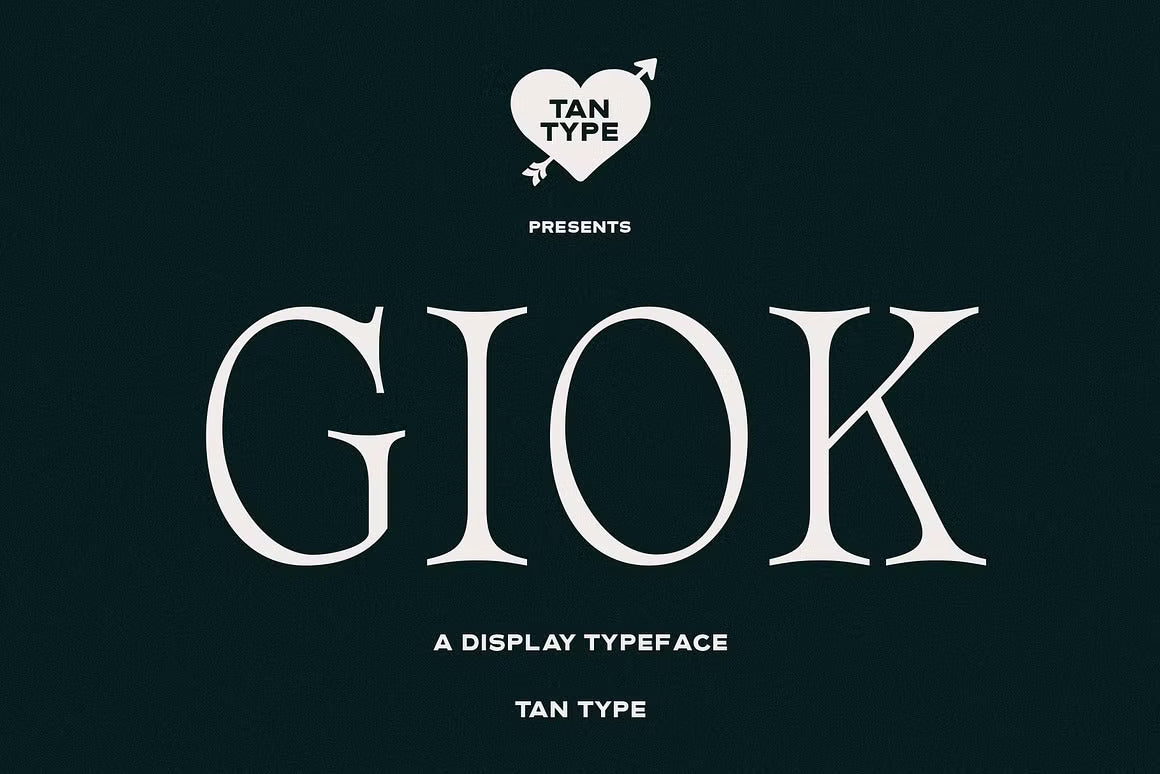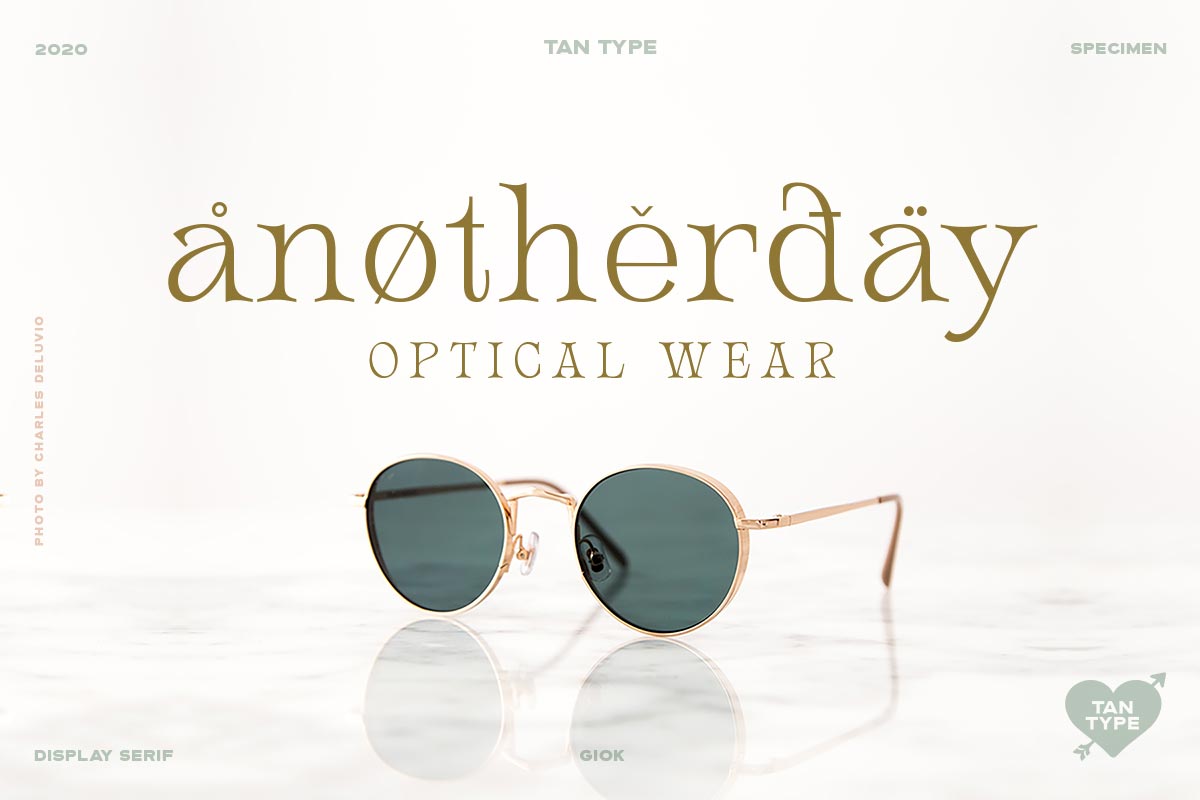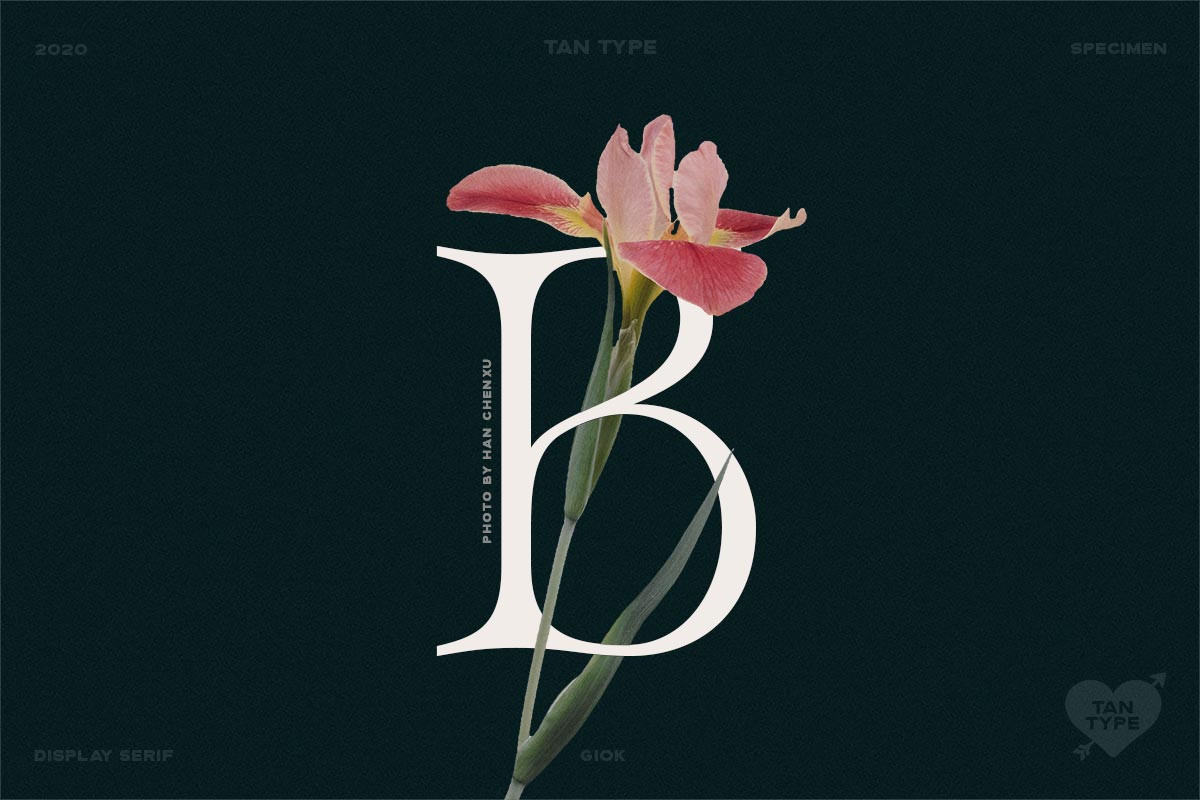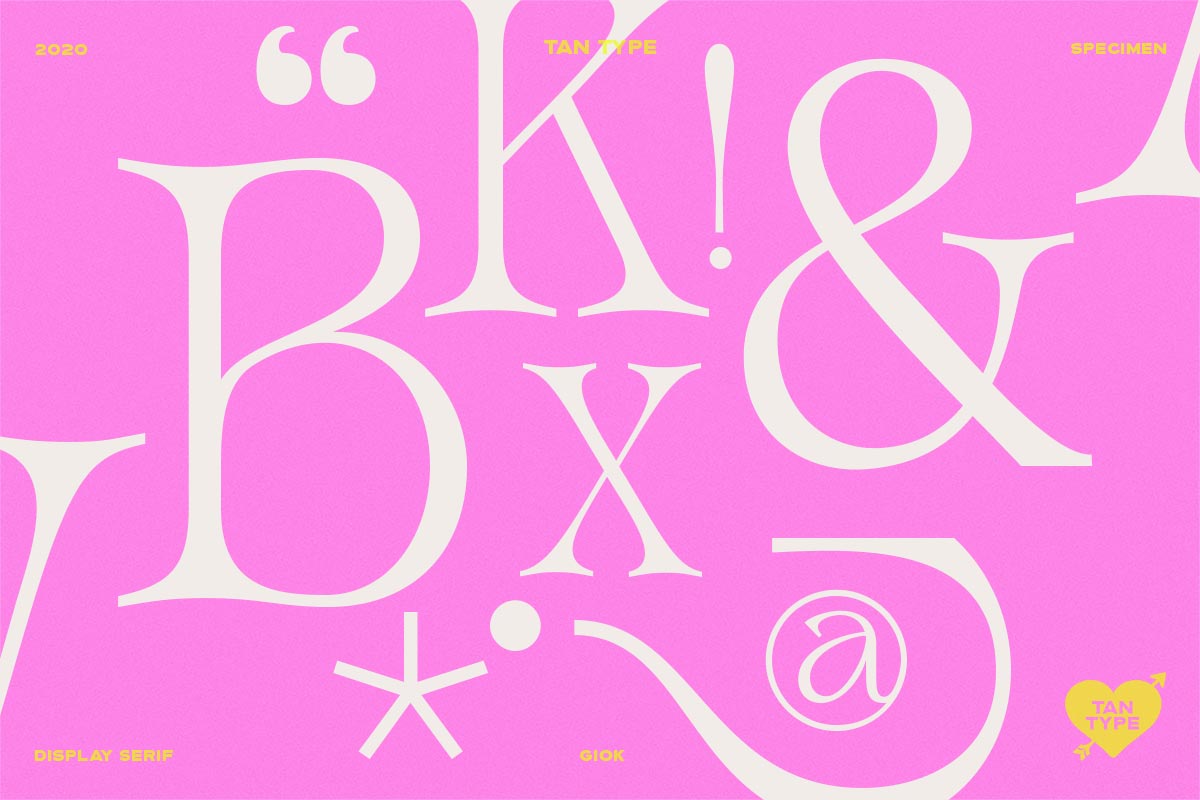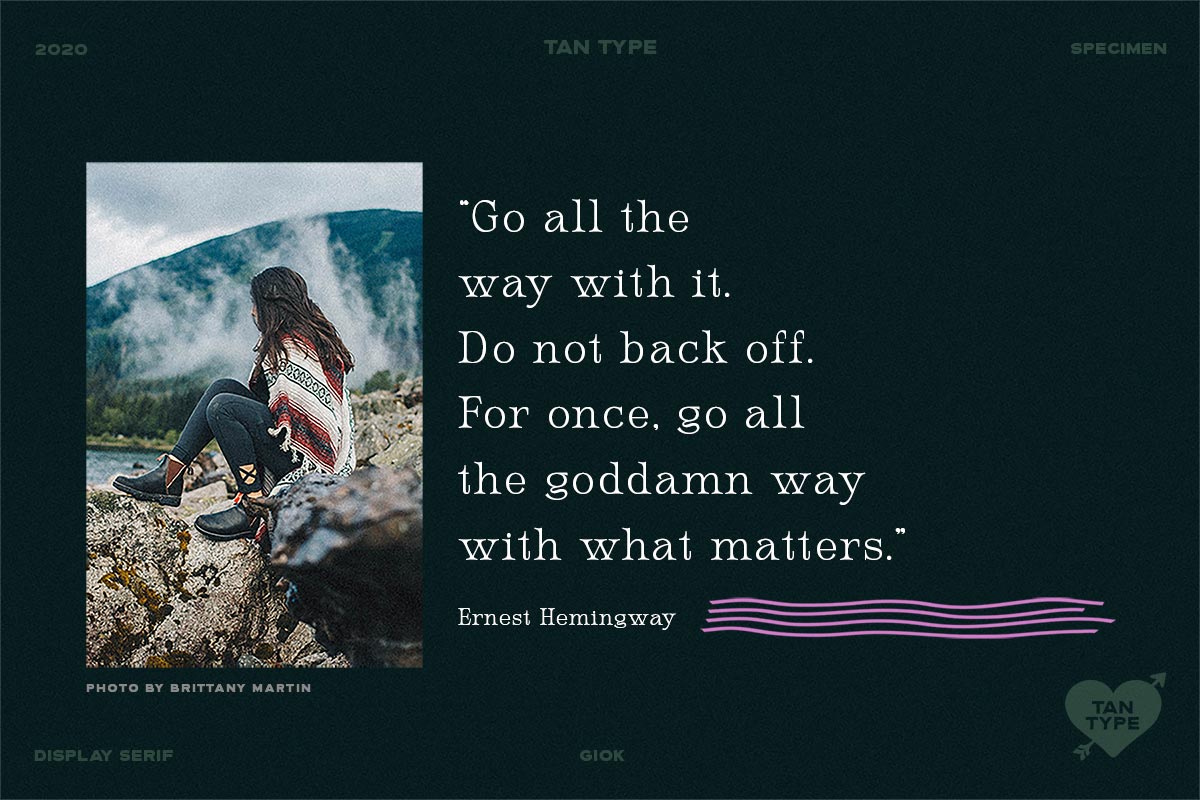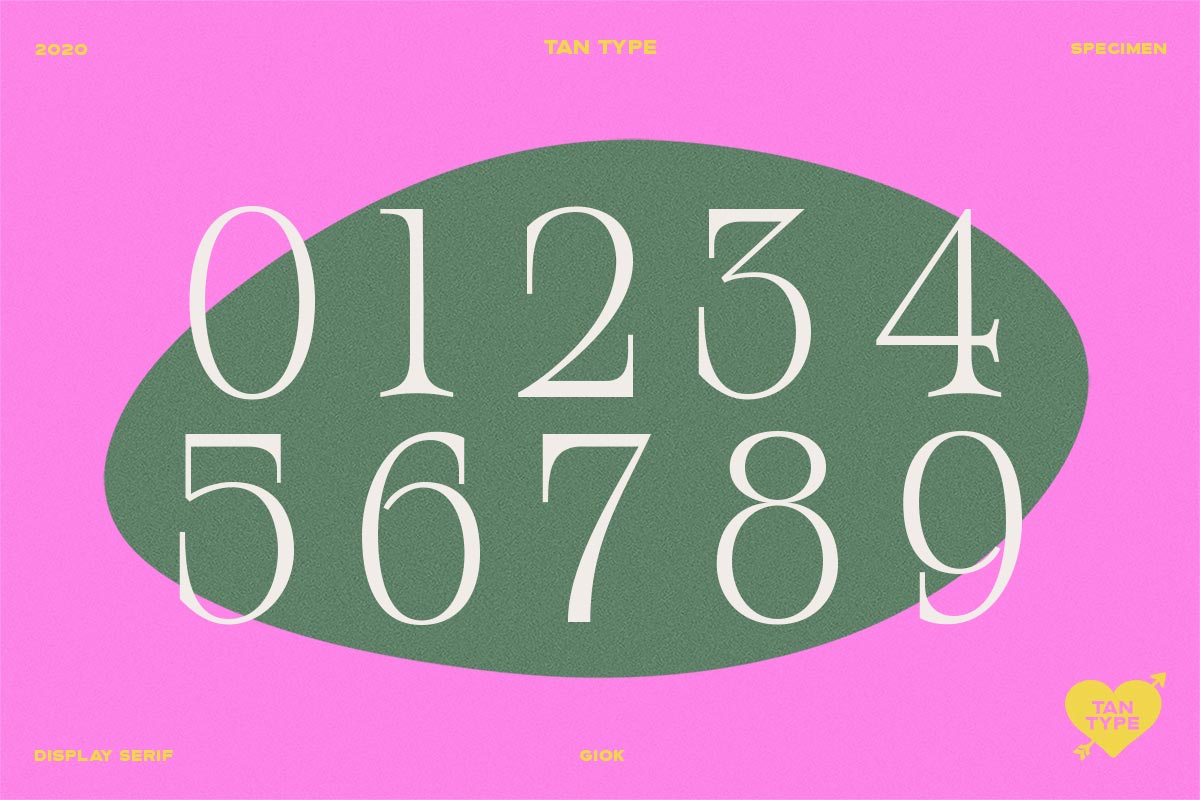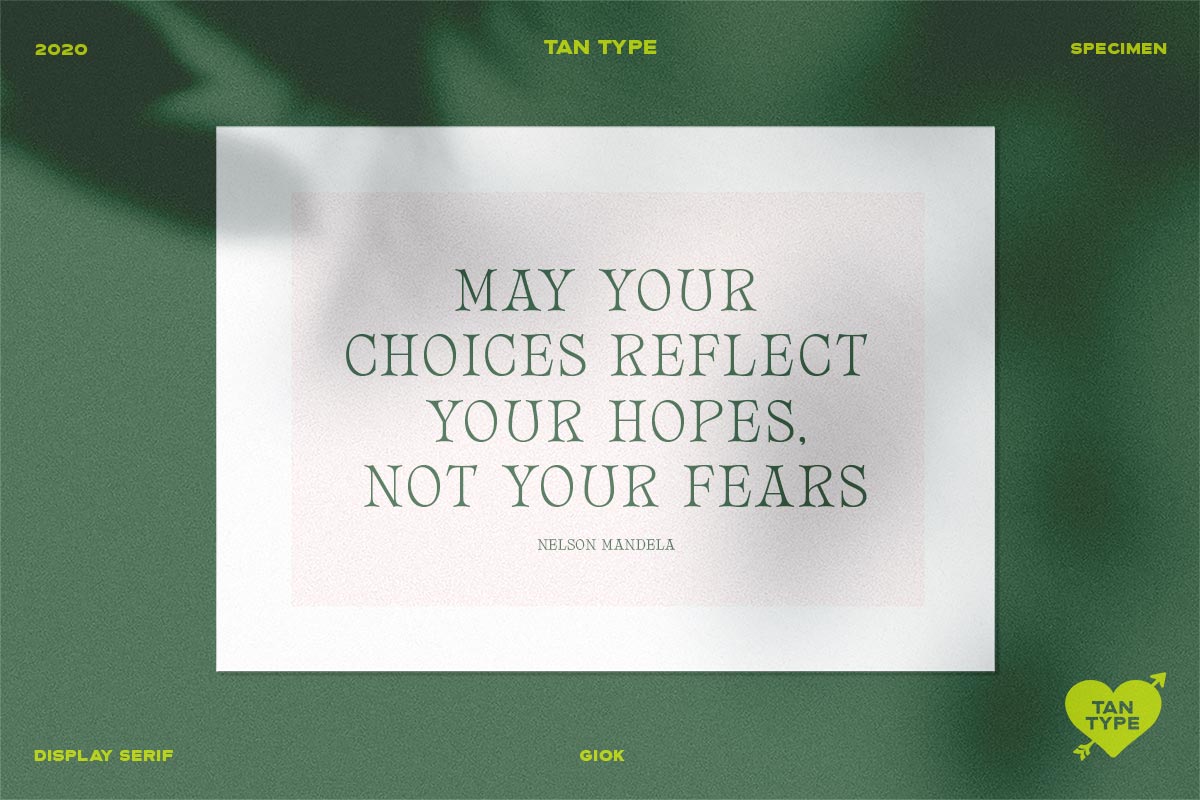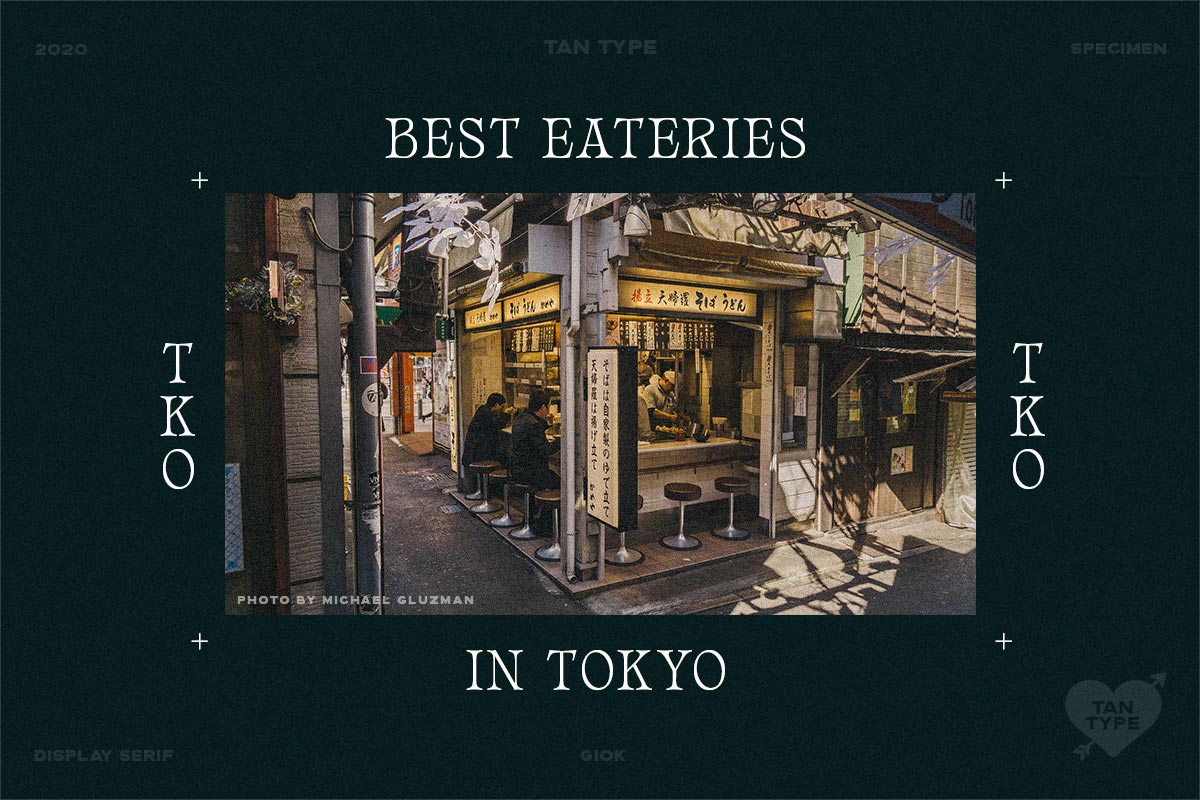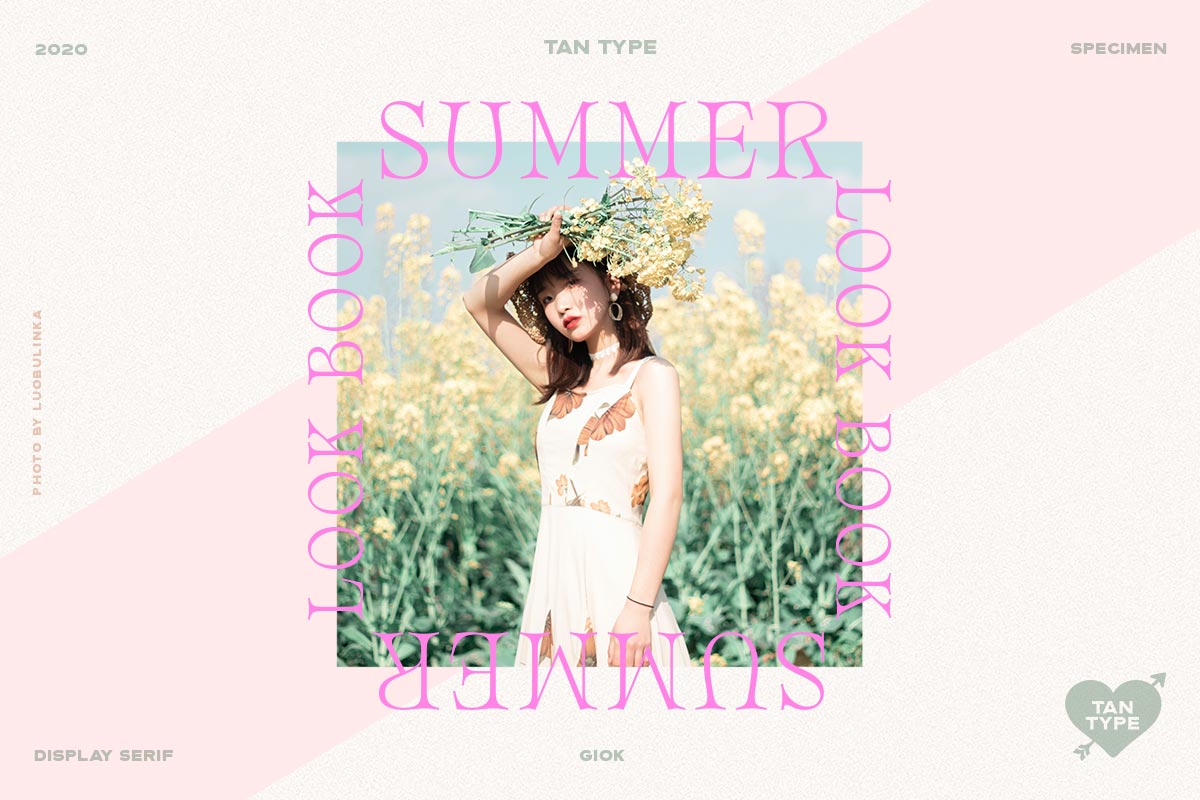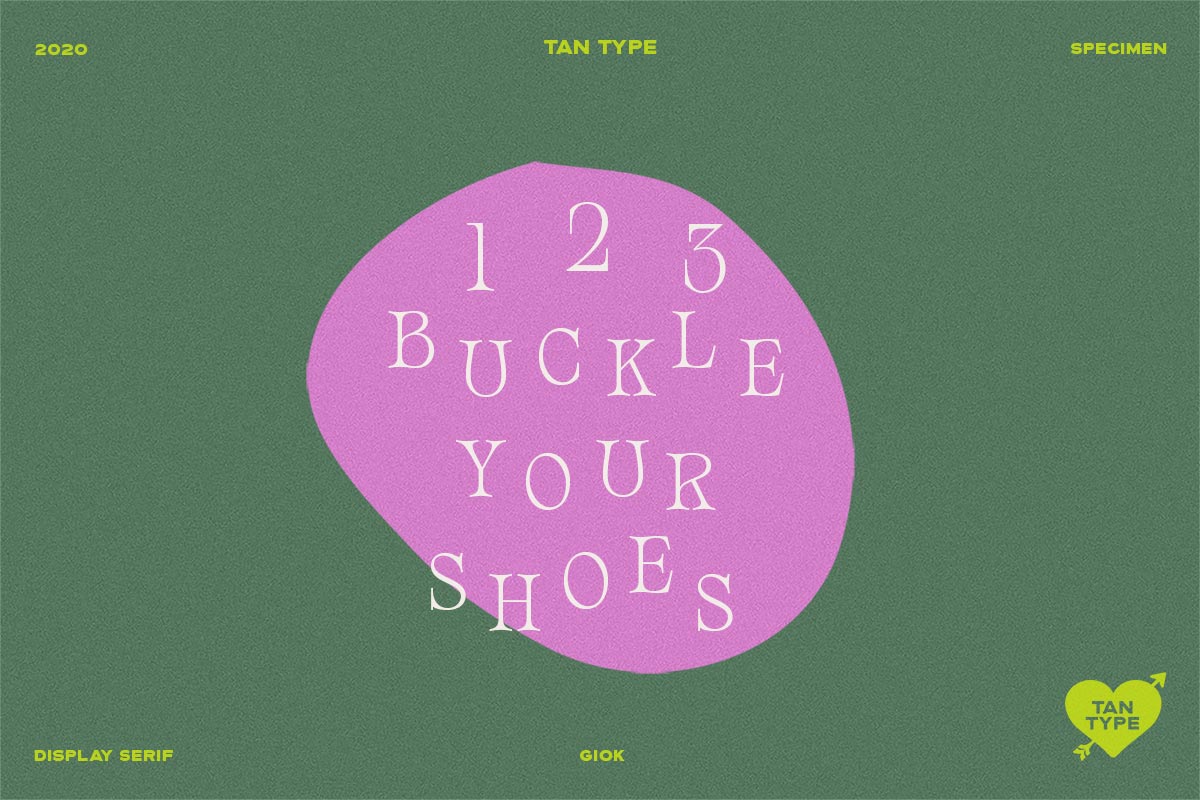
GIOK is a high-contrast display serif font that radiates refined charm and editorial elegance. Its poised letterforms strike the ideal balance between classic and contemporary—sophisticated yet daring.